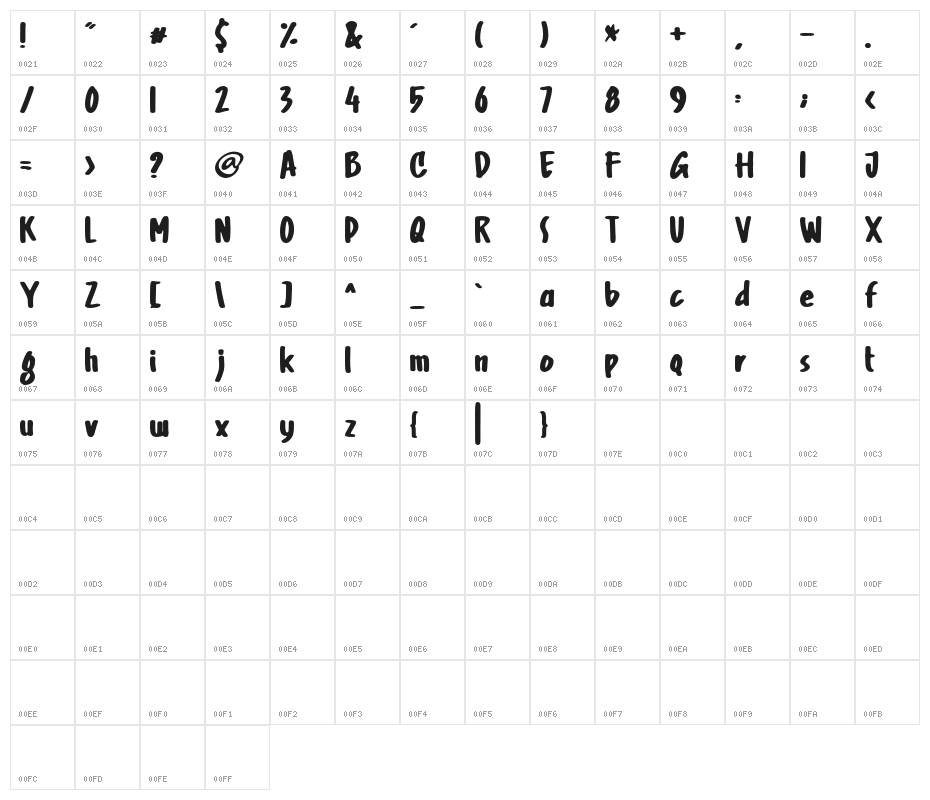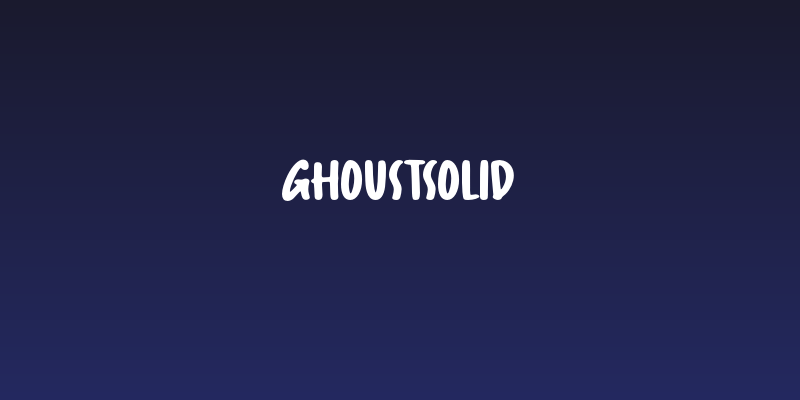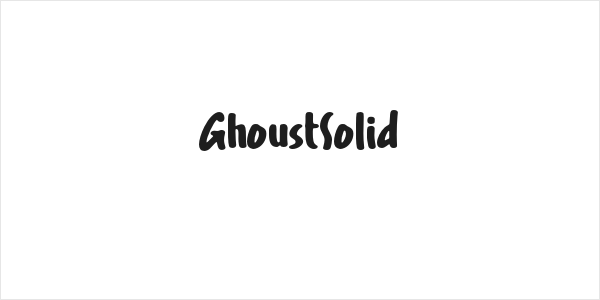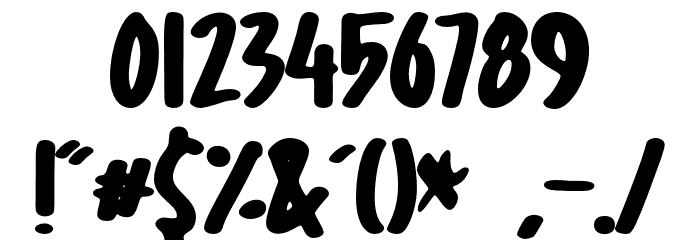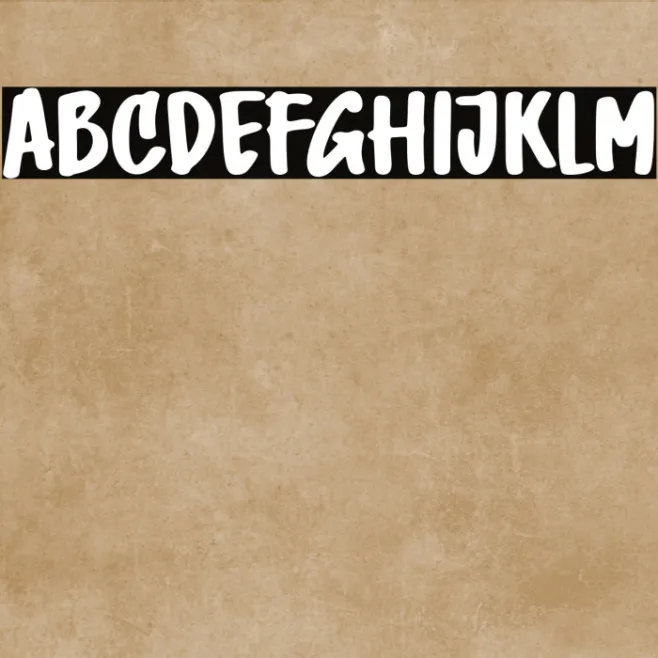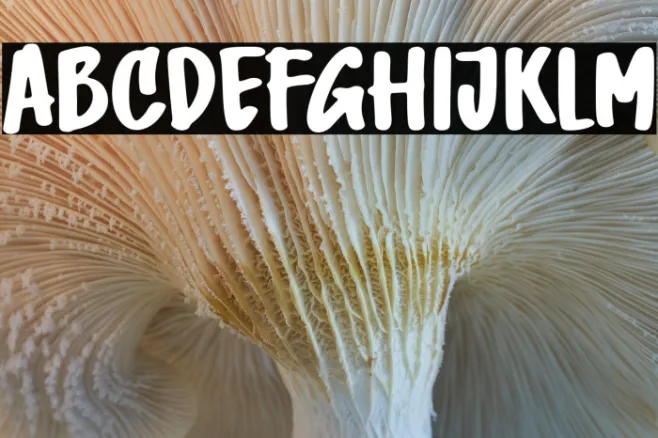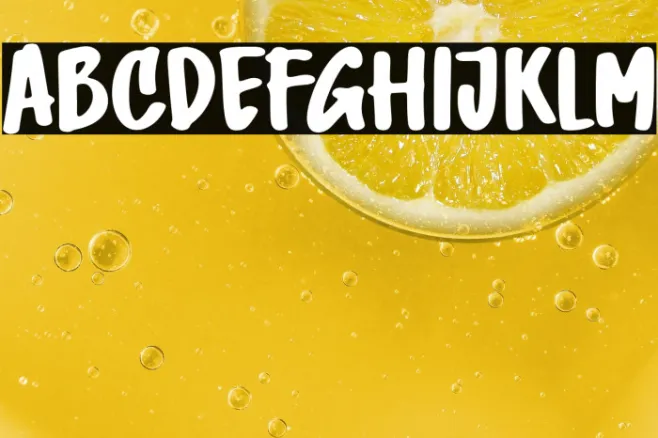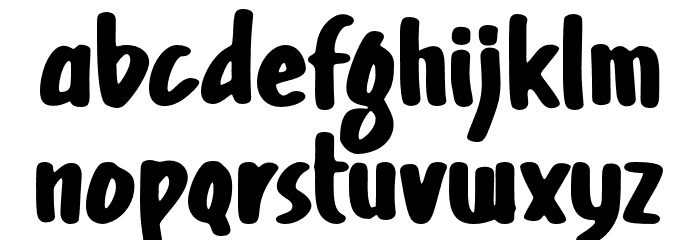
GhoustSolid Font
GhoustSolid Description
This font features a bold and playful design with a handwritten style that exudes a sense of fun and creativity. The characters are thick and rounded, giving them a solid and substantial appearance. The uppercase and lowercase letters maintain a consistent style, with slightly irregular shapes that add to the casual, informal feel. The numbers and special characters follow the same design principles, ensuring a cohesive look across all elements. This font is perfect for projects that require a touch of whimsy and personality, making it ideal for creative branding, playful headlines, and eye-catching posters.
| Overall Style | Playful, Casual, Creative |
| Proposed Projects | Creative branding, playful headlines, eye-catching posters, children's books, and casual invitations. |